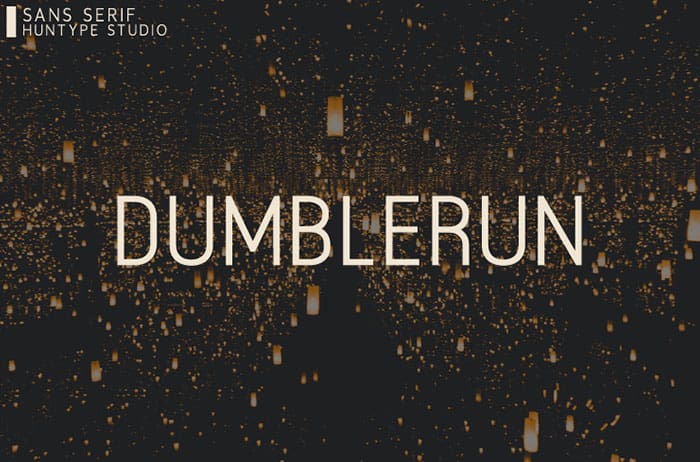
Dumblerun Sans Serif Font
Dumblerun is a fancy and modern sans serif font. Use it to achieve an exquisite, yet subtle look and maximum versatility. Thanks to Mas Anis for sharing this font! Take a look at this portfolio for more of his stunning fonts.